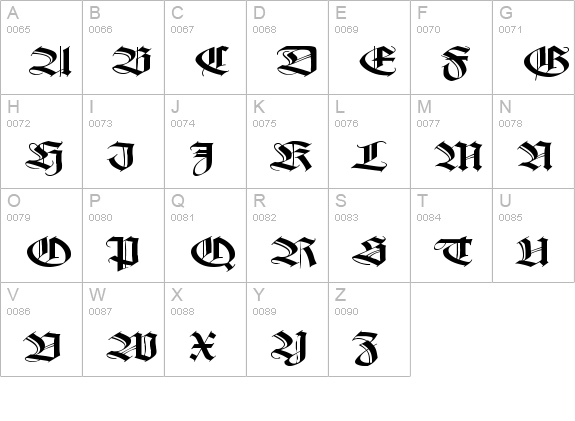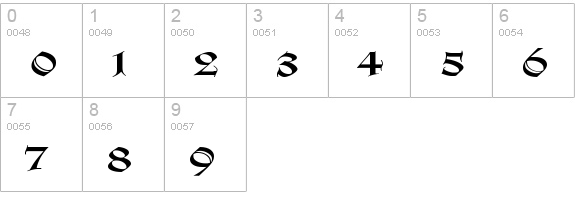
WilhelmKlingsporGotisch Ex is a beautifully crafted font that exudes a sense of elegance and sophistication. With its striking and intricate Gothic letterforms, this font pays homage to the rich history of traditional German typography. The sharp edges and fine details of each letter make WilhelmKlingsporGotisch Ex a truly unique typeface that stands out from the crowd. One of the most remarkable features of this font is that it is freely available for download at FontsMarket.com. This means that you can easily add a touch of old-world charm to your designs without having to worry about any additional costs. Whether you're creating invitations, logos, or any other design project, WilhelmKlingsporGotisch Ex will certainly elevate your work to new heights. The versatility of WilhelmKlingsporGotisch Ex is evident in its ability to adapt to various design styles and contexts. It can be used to convey a sense of tradition and heritage, or it can be combined with contemporary elements to create a visually stunning juxtaposition. The possibilities are endless, and with this font, you have the freedom to experiment and explore your creativity. The legibility of WilhelmKlingsporGotisch Ex is another standout feature. Despite its intricate design, the font remains highly readable even at smaller sizes. This ensures that your message will always come across clearly and effectively, no matter how you choose to use it. So, whether you're a professional designer, a typography enthusiast, or simply someone who appreciates the beauty of well-crafted fonts, WilhelmKlingsporGotisch Ex is a must-have in your collection. And the best part? It's completely free to download at FontsMarket.com. Don't miss out on this opportunity to enhance your designs with this stunning Gothic font.